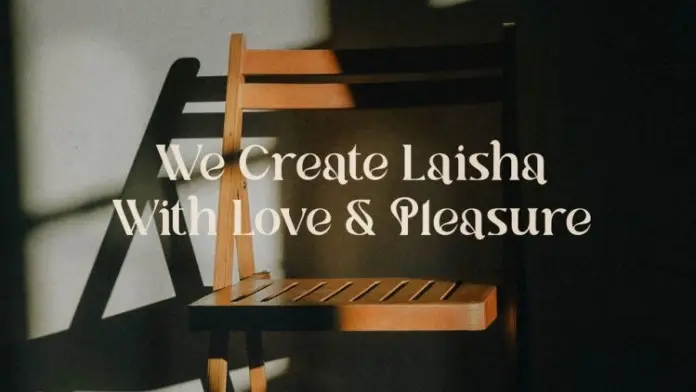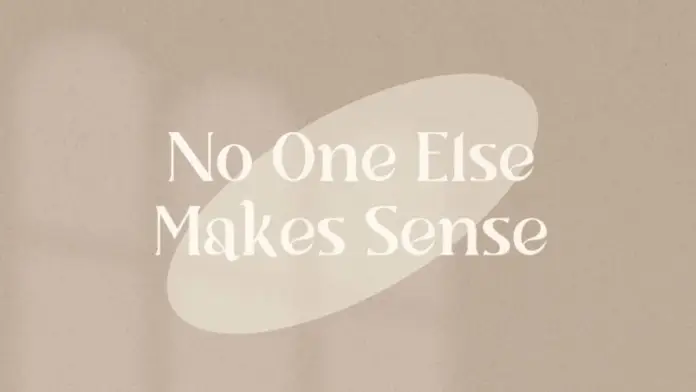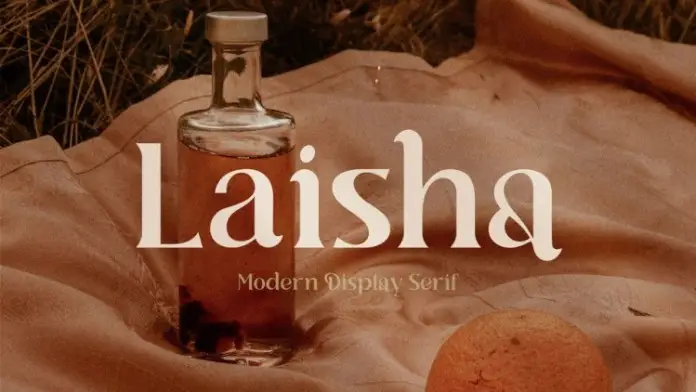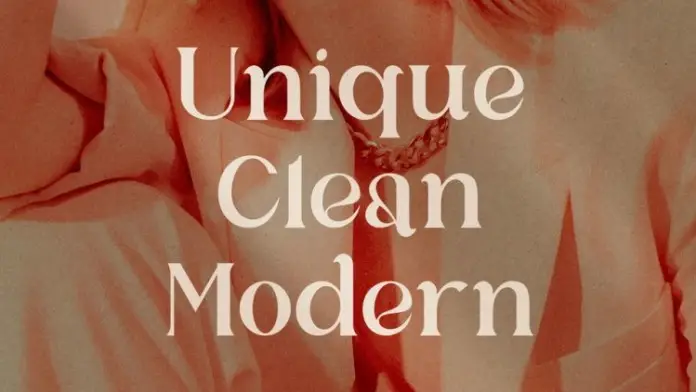
Laisha Serif Font
Introducing the Laisha Serif Font, a beautifully crafted typeface that combines elegance with readability. This font features a classic serif style, perfect for adding a touch of sophistication to your designs.
• Available in multiple weights for versatility
• Classic serif design for a timeless look
• Clear legibility for both print and digital applications
This font is ideal for branding projects, logos, editorial designs, and any creative work that requires a refined touch.